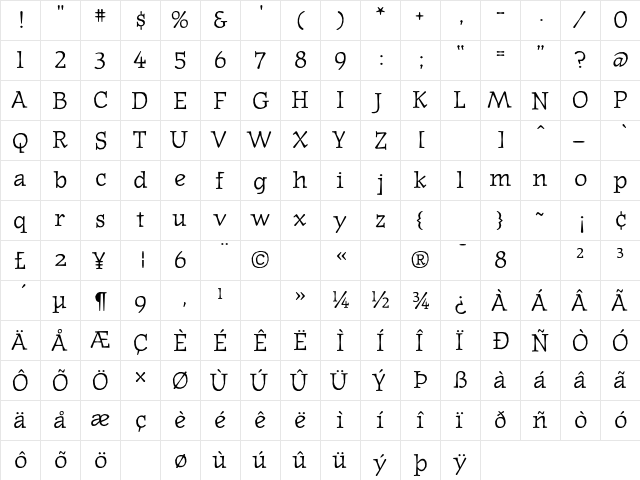
JournalText Roman Font Preview
JournalText Roman
Design Context for JournalText Typeface
JournalText offers clean, dependable letterforms without strong stylistic allegiance, making it a practical choice for designers who need flexibility.